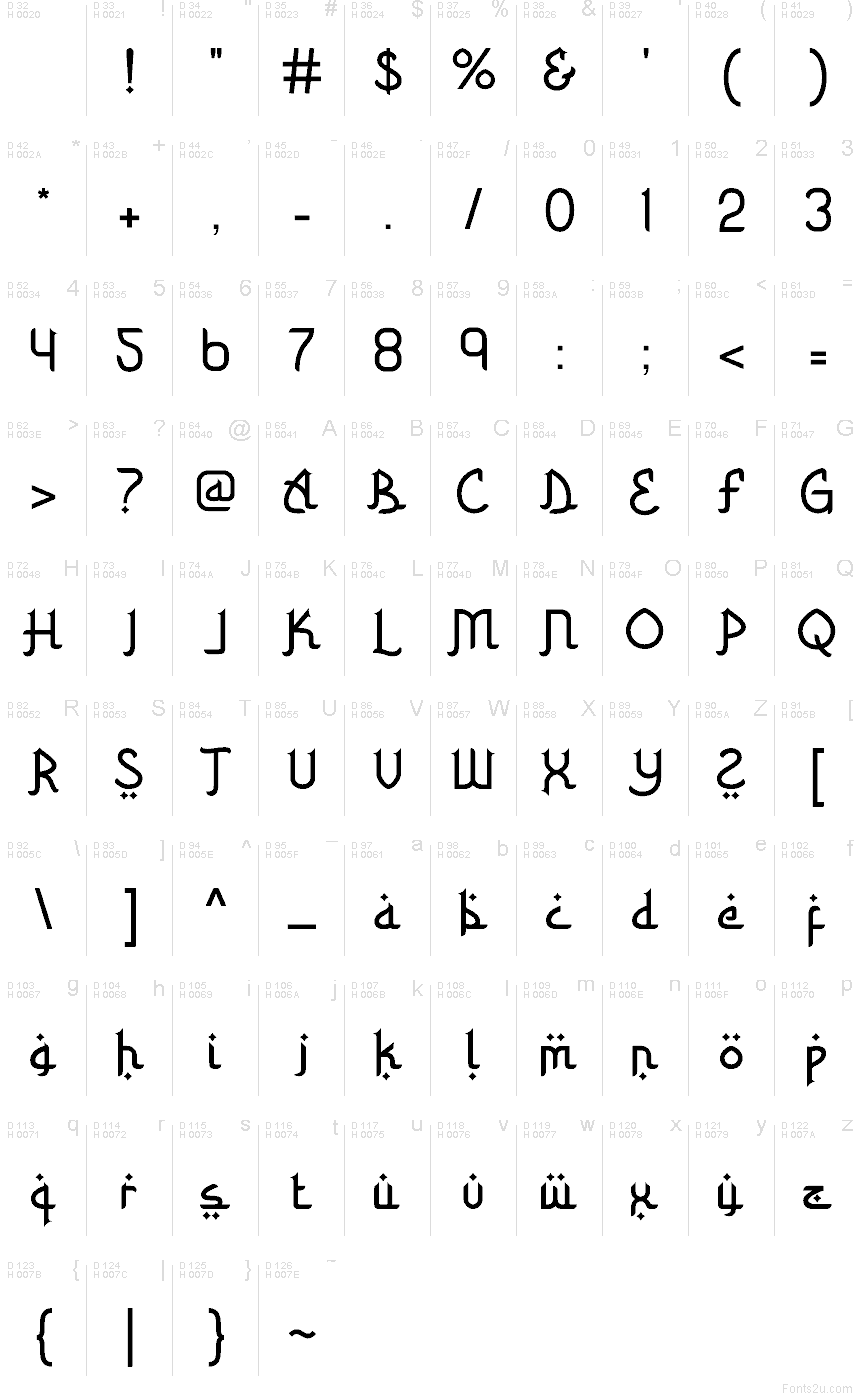
Ramallah
Ramallah font by Rmdndsign is a free decorative faux Arabic typeface that instantly wraps your lettering in a Middle Eastern-inspired mood. Its tall, slightly angular strokes curl into hook-like shapes, while the small diamond details feel like tiny ornaments threaded between letters. The result is bold, legible Latin text that still carries the flowing rhythm and spice-market drama of Arabic calligraphy.
Using Ramallah, this free font shines on restaurant branding, hookah lounge signage, event posters, film titles, themed packaging, and travel editorials. The letters hold together tightly, so short phrases and logotypes feel dense and atmospheric rather than sparse. Pair this font with a clean geometric sans serif for body copy, and let Ramallah handle the striking headline moments at larger sizes.